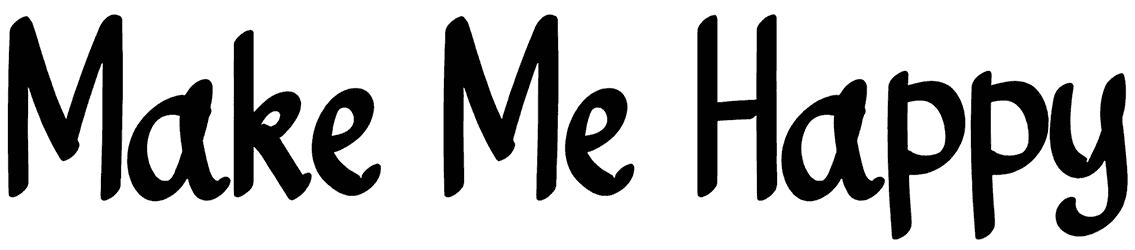
Make Me Happy Font
Usually, script fonts do not have an apparent order, and the elements in them are placed together irregularly. But Make Me Happy upsets this deal and has taken on a regular form.
This handwritten font is designed with special care, and the lines are vertical and smooth. So, they can create an obsessive sense of order in your writing, which leaves a positive impact on the audience. You can use this font to design exercise books, stationery, and business cards.